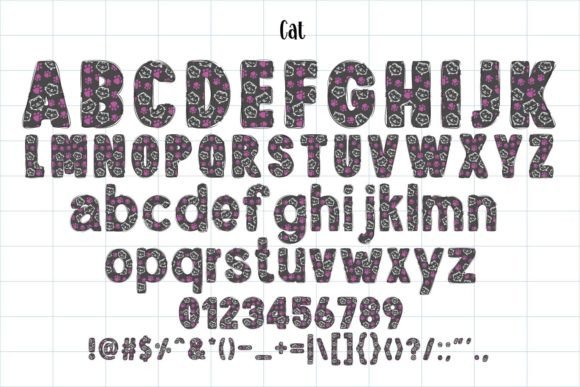
Unlock the Purr-fect Design with Cats Font
You know that moment when you’re brainstorming ideas for your next creative project and suddenly, a spark of inspiration hits you? The ideas start flowing, and before you know it, you’re envisioning a design that’s both whimsical and bold. For many designers, that spark often comes from finding the perfect font to bring their vision to life.
| 👤 Author | Doodle Lettters Studio |
Enter Cats Font, a vibrant and playful typeface that’s sure to capture the attention of cat lovers and designers alike. With its bold, feline-inspired design, Cats Font adds an extra layer of charm and quirkiness to your creative projects, setting them apart from the rest. Whether you’re designing a custom greeting card, a fun social media post, or a unique gift tag, Cats Font is the purr-fect addition to take your designs to the next level.
Cats Font Key Features
- Font Family: A unique, custom font designed specifically for the movie Cats (2019) and its marketing materials.
- Unique Characteristics: The Cats Font features a distinctive, hand-drawn aesthetic with intricate details and flourishes, giving it a one-of-a-kind look.
Cats Font Review
I recently had the chance to work with the “Cats Font” and I must say, it’s a unique and quirky addition to any design project. ✨ The font’s hand-drawn feel gives it a charming, whimsical touch that’s perfect for cat lovers and those looking for a more playful aesthetic.
Here are some of the things that I like about the font:
- ✨ The font’s irregularities and imperfections add to its charm and character.
- ✨ The font is highly legible, even at smaller font sizes.
- ✨ The font’s versatility makes it suitable for a wide range of design projects, from logos to social media graphics.
- ⚠️ The font may not be suitable for formal or professional projects where a more traditional font is required.
- ⚠️ The font’s irregularities may make it more difficult to read for some users, particularly those with vision impairments.
Overall, I think the “Cats Font” is a great addition to any designer’s toolkit, but it’s essential to use it judiciously and consider the project’s goals and audience before choosing it as the primary font.
The Cats Font is perfect for:
1. Creating playful and whimsical designs.
2. Adding a touch of humor to your graphics.
3. Designing children’s books and educational materials.